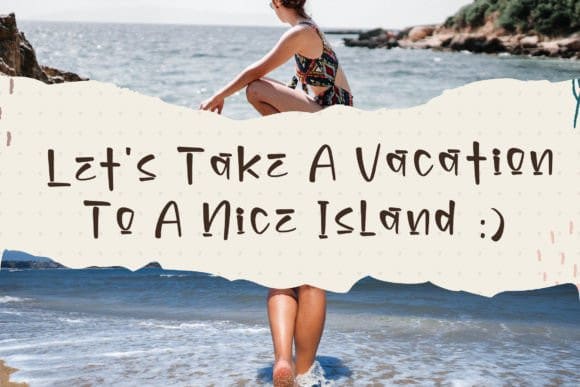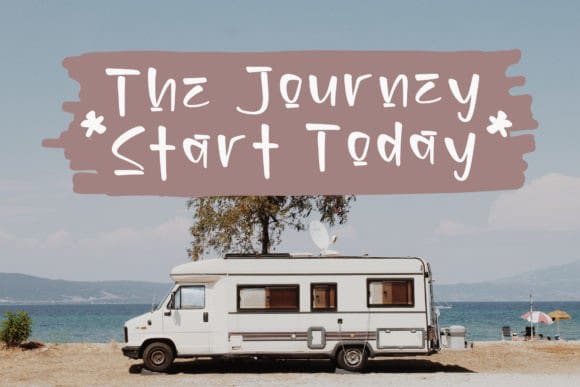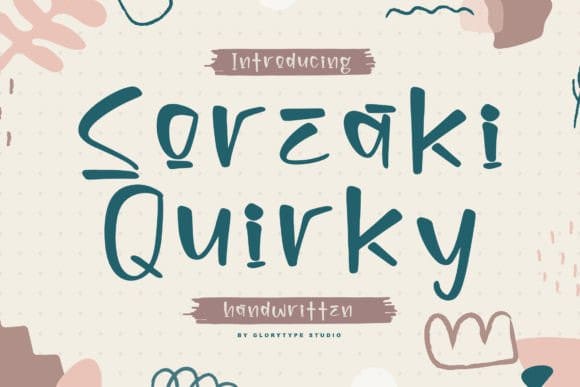
Soreaki Font
Soreaki Font is an incredibly quirky and sweet display font. Whether you use it for cartoon-related designs, children’s games, or just any creation that requires a lovely touch, this font will be an amazing choice.